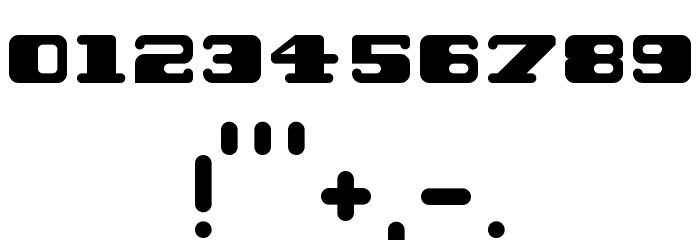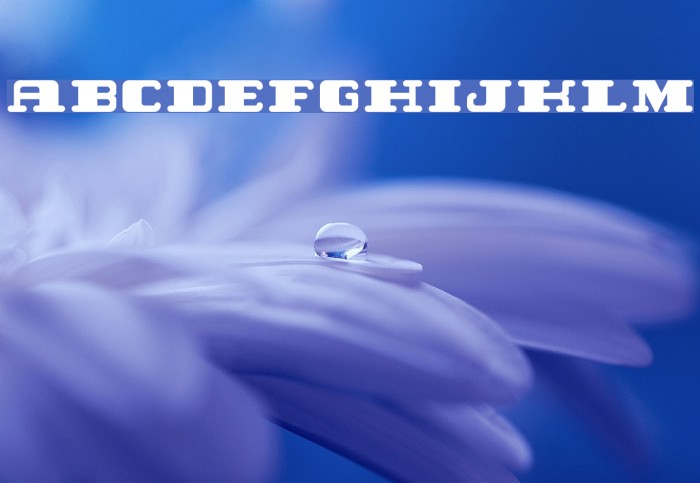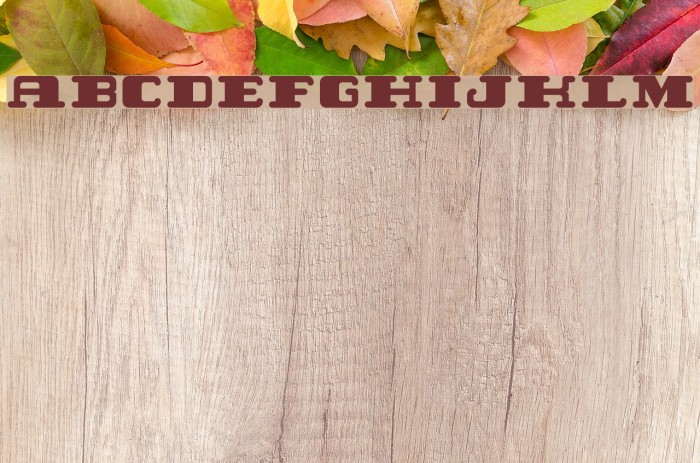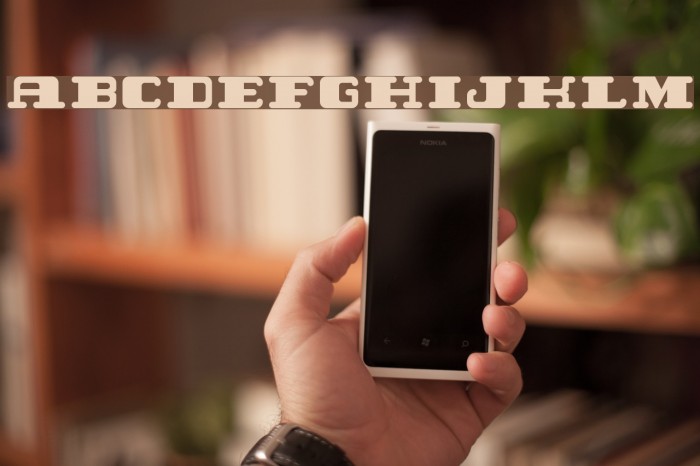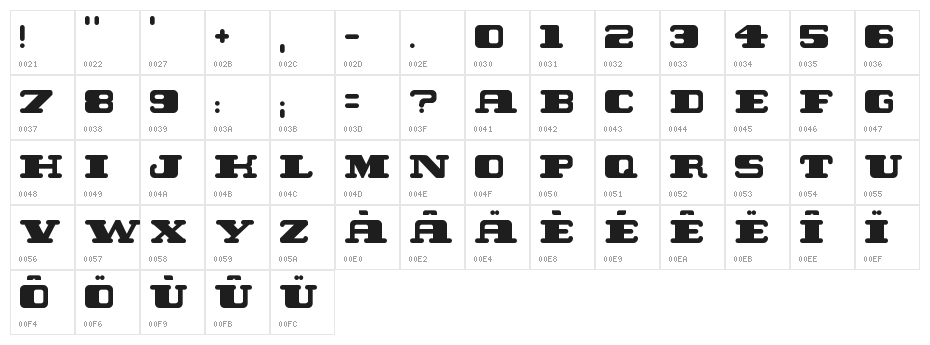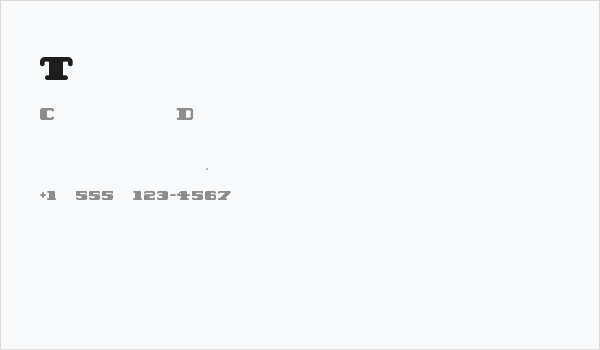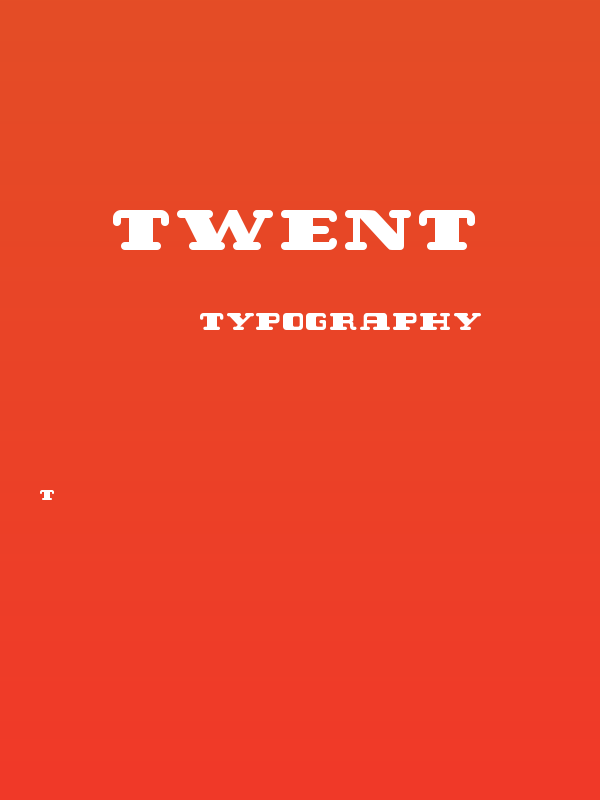
Twent Font
This font features a bold, geometric design with strong, block-like characters. The letters are uniformly wide, with a consistent stroke weight that gives a robust and impactful appearance. The style is reminiscent of industrial or military typefaces, with a modern twist. The characters are evenly spaced, providing a clean and organized look. The numbers and special characters maintain the same boldness and geometric precision, making them highly legible and visually cohesive with the alphabet. This font is ideal for projects that require a strong and assertive visual presence.
A bold, geometric font with a strong, industrial style.
- Proposed Projects: Ideal for branding, posters, headlines, and signage where a strong visual impact is needed.